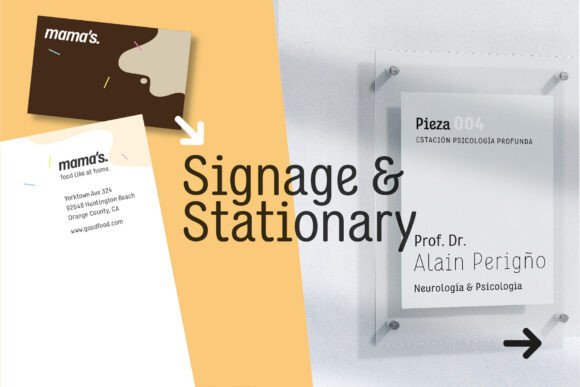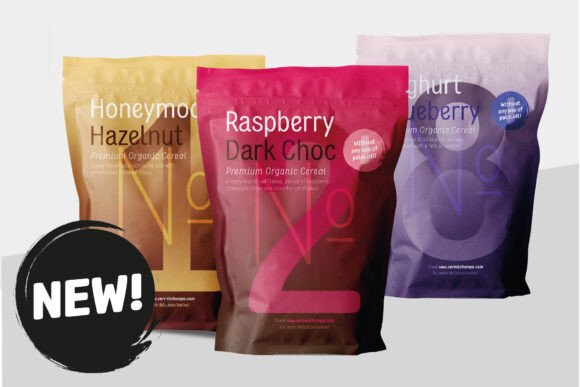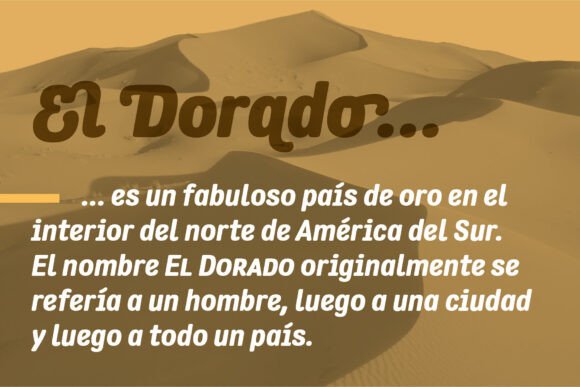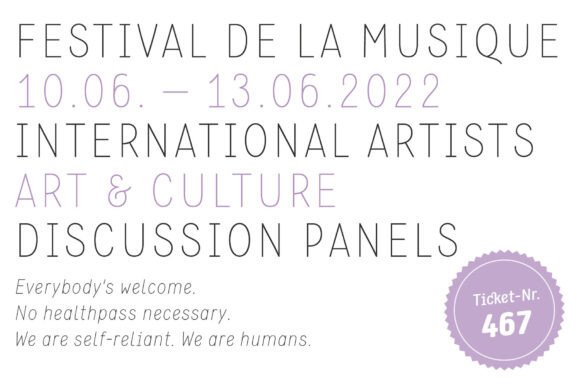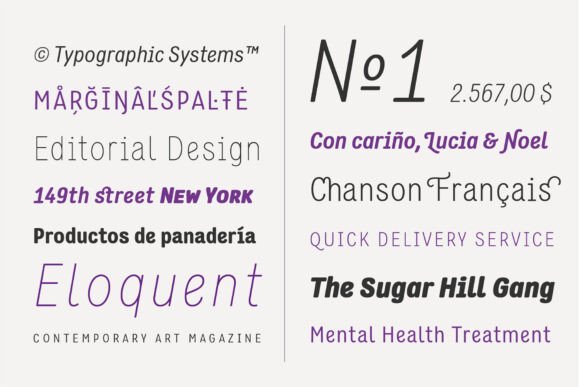
Introducing Flavoure Font: Elevate Your Typography with Elegance and Versatility
In the world of typography, finding the perfect font that balances friendliness, elegance, and versatility can be a daunting task. However, look no further than Flavoure Font, a beautifully crafted typeface family designed to meet all your typographic needs. With its soft, round edges and sophisticated charm, Flavoure is an excellent choice for designers and crafters seeking to add a touch of refinement to their projects.
Key Features of Flavoure Font
Flavoure Font boasts an impressive range of features that set it apart from other typefaces. This comprehensive font family includes:
- Seven weights for Roman and italic: Flavoure offers a wide range of weights, from light to bold, allowing you to achieve the perfect balance of elegance and readability in your designs.
- Extended character set: Each font in the Flavoure family includes an extended character set, featuring small caps, ligatures, and swash letters. This extensive character set enables you to create stunning typographic compositions with improved readability and aesthetics.
Endless Design Possibilities with Flavoure
Flavoure’s incredible versatility makes it an ideal choice for a wide range of design applications. Whether you’re working on:
- Texts: Flavoure’s clear and readable design ensures that your body text is easy to read and understand, making it perfect for books, articles, and blog posts.
- Headlines: With its elegant and sophisticated charm, Flavoure is well-suited for headlines, adding a touch of luxury and refinement to your designs.
- Logos: Flavoure’s unique character makes it an excellent choice for logos, allowing you to create a distinctive brand identity that stands out from the crowd.
- Packaging: Flavoure’s versatility and elegance make it perfect for packaging design, adding a touch of sophistication to your product’s branding.
- Stationery: Flavoure’s refined design makes it an excellent choice for stationery, including business cards, letterheads, and envelopes.
Why Choose Flavoure Font?
Flavoure Font offers a unique combination of characteristics that make it an attractive choice for designers and crafters. Here are just a few reasons why you should consider Flavoure for your next project:
- Unique and distinctive design: Flavoure’s soft, round edges and elegant charm make it a standout among other typefaces, ensuring your designs will grab attention.
- Highly versatile: With seven weights and an extended character set, Flavoure can be used for a wide range of design applications, from body text to headlines and logos.
- Easy to read and understand: Flavoure’s clear and readable design ensures that your text is easy to read and understand, making it perfect for body text and other long-form content.
In conclusion, Flavoure Font is an exceptional typeface family that offers a perfect blend of elegance, versatility, and friendliness. With its extensive character set, seven weights, and soft, round edges, Flavoure is an excellent choice for designers and crafters seeking to elevate their typography. Whether you’re working on a book, logo, or packaging design, Flavoure is sure to impress. So why wait? Discover the power of Flavoure Font and take your designs to the next level.